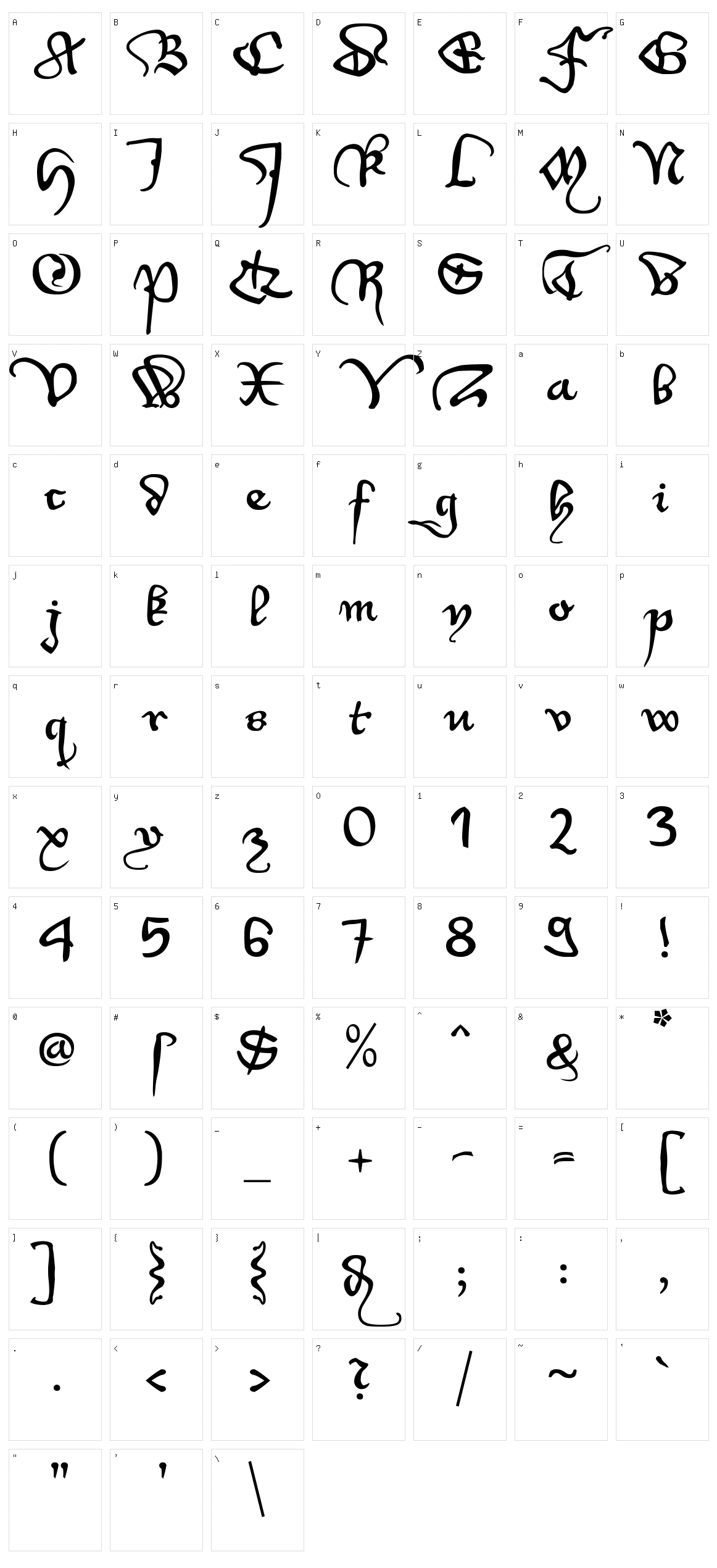
WirWenzlaw 1.1
-- created by Pia Frauss in 2003, with High Logic's FontCreator Program; updated in 2005 --
This is a genuine Bastarda, written at Prague in the year 1400, at the chancery of one Wenzlaw who was king of Bohemia and Roman king. His elixir of life was booze, his first occupation fighting off a brother who tried and retried to have him dethroned for insanity, his favourite pasttime having people drowned in the Moldava, and his only claim at immortality causing thereby the death of a court clerk called John of Pomuk, who afterwards became renowned as a saint. However, it surely wasn't Saint John Nepomuk who wrote the quite innocuous little document this font is based on.
The font is called after the first two words of that document, saying - in German - "We Wenzlaw..."
There is no number sign in this font. In its place, you'll find a long s. Equally, you'll find an alternate d on the bar sign; and the fi and fl sign contain a double p and an alternate v.